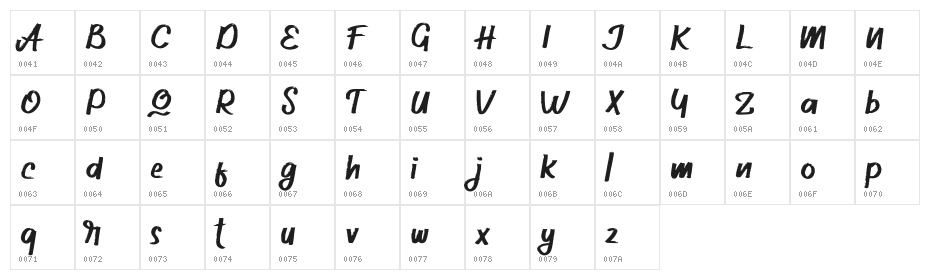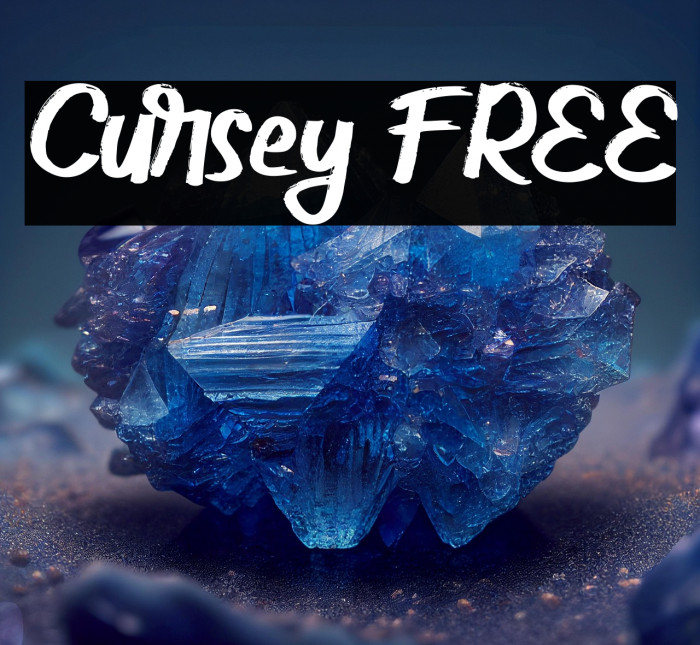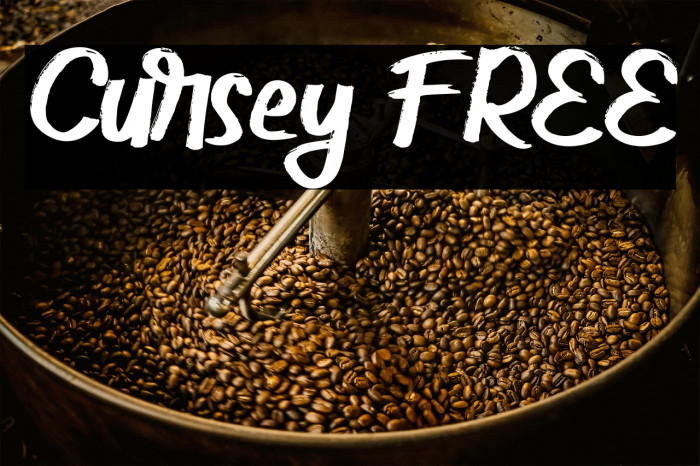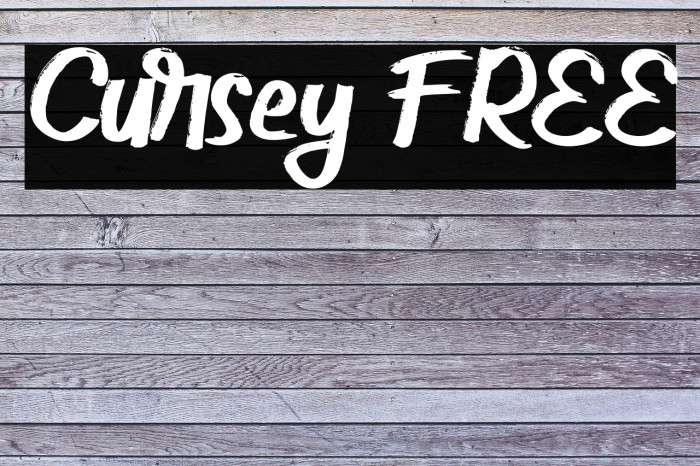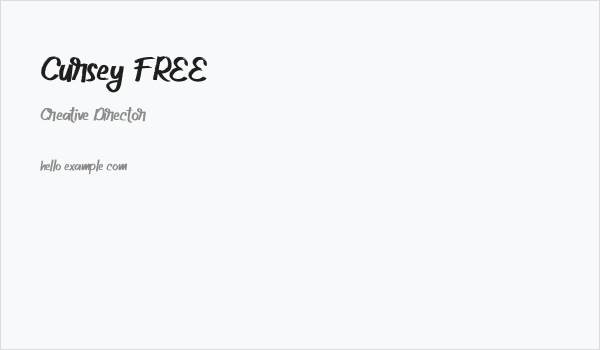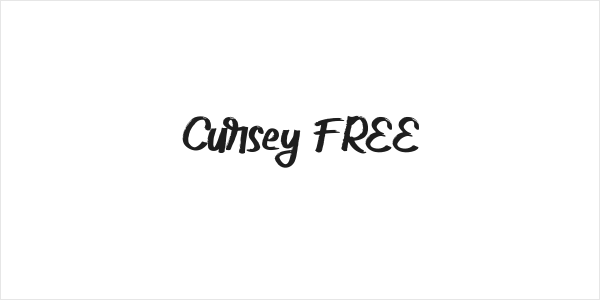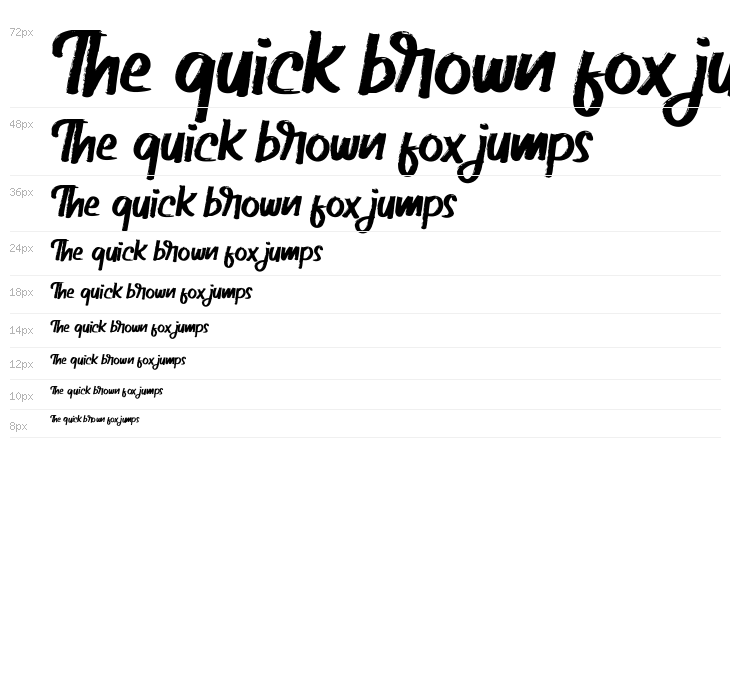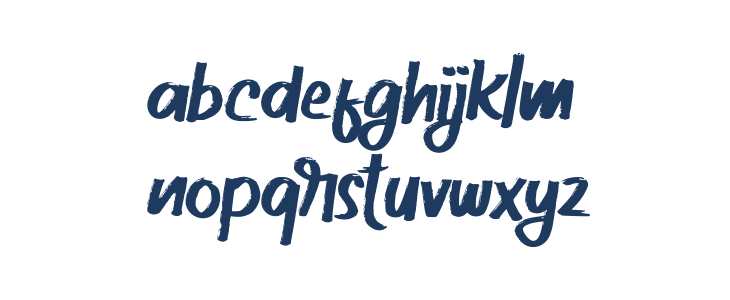
Cursey FREE Font
Cursey FREE Description
This font features a bold and expressive script style, characterized by its dynamic and fluid strokes. The letters are crafted with a brush-like texture, giving them a hand-painted appearance. The uppercase and lowercase letters maintain a consistent flow, with some characters featuring unique flourishes and swashes that add to its artistic appeal. The font's playful and energetic nature makes it suitable for creative projects that require a touch of personality and flair. Its boldness ensures readability while maintaining a decorative aesthetic.